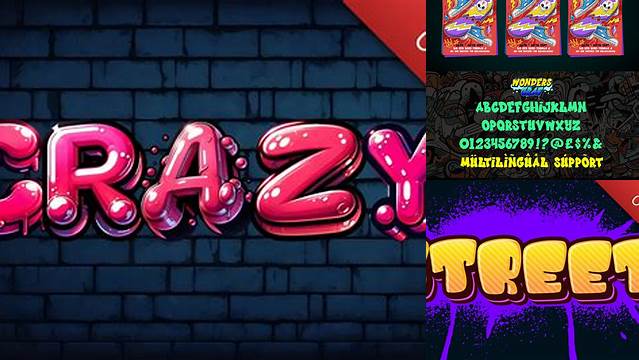
Free 3D Graffiti Font Generator: Create Stunning Art
Are you looking to transform your text into eye-catching 3D graffiti art? Look no further! In this article, we'll explore the exciting world of 3D graffiti font generators and how you can use them to create stunning visuals for your projects, all for free. Whether you're a seasoned designer or just starting, these tools offer a fantastic way to add a unique urban edge to your creations. So, let's dive in and discover how you can unleash your inner graffiti artist!
What is a 3D Graffiti Font Generator?
3D graffiti font generators are online tools that allow you to create text-based designs with a distinctive three-dimensional graffiti style. These generators take your input text and transform it into a graphic image that mimics the look and feel of real-world graffiti art. Imagine bold, vibrant letters with depth, shadows, and intricate details – that's the power of a 3D graffiti font generator. These tools are designed to be user-friendly, making it easy for anyone to create impressive graffiti art without needing specialized design software or skills. Guys, it's like having a virtual spray can at your fingertips!
The beauty of these generators lies in their ability to blend the raw, edgy aesthetic of graffiti with the precision and versatility of digital design. They offer a wide range of customization options, allowing you to experiment with different fonts, colors, shadows, and textures. This means you can tailor your graffiti art to perfectly match the mood and style of your project. Whether you're designing a logo, creating social media graphics, or just want to add some flair to a presentation, a 3D graffiti font generator can be a game-changer. You can even use these generators to create personalized gifts or decorations, adding a unique touch to your creations. The possibilities are endless, and the best part is, many of these tools are available for free, making them accessible to everyone. So, why not give it a try and see what amazing graffiti art you can create?
Moreover, 3D graffiti font generators often provide a preview feature, allowing you to see how your design will look before you finalize it. This is incredibly helpful for making adjustments and ensuring your final product is exactly what you envisioned. You can tweak the settings, change the colors, and experiment with different effects until you achieve the perfect result. This iterative process is not only efficient but also incredibly fun, encouraging creativity and exploration. The ease of use and the immediate feedback make these generators an excellent resource for both beginners and experienced designers alike. So, if you're looking to add some urban flair to your projects, a 3D graffiti font generator is definitely worth exploring. It's a fantastic way to express your creativity and make your designs stand out from the crowd. Plus, with the vast array of options and styles available, you're sure to find the perfect look for your unique vision. Let your imagination run wild and see what incredible graffiti art you can bring to life!
Why Use a Free 3D Graffiti Font Generator?
There are numerous reasons why using a free 3D graffiti font generator is a fantastic idea. First and foremost, it's free! This makes it an accessible option for anyone, regardless of their budget. You don't need to invest in expensive software or hire a professional designer to create stunning graffiti art. This is particularly beneficial for students, hobbyists, and small businesses that may have limited resources but still want to create high-quality visuals. It's a great way to experiment with different styles and techniques without any financial commitment. Plus, the money you save can be used for other aspects of your project, making it a smart choice for budget-conscious creators.
Beyond the cost savings, free 3D graffiti font generators are incredibly user-friendly. Most of these tools are designed with simplicity in mind, featuring intuitive interfaces that are easy to navigate. You don't need to be a design expert to create impressive graffiti art. Simply enter your text, choose your preferred font and colors, and the generator does the rest. This ease of use makes it a great option for beginners who are just starting to explore graphic design. You can quickly learn the basics of typography and visual design while creating eye-catching art. The quick turnaround time also means you can create multiple designs in a short period, making it ideal for brainstorming and experimentation. It's a fantastic way to develop your creative skills and find your unique style.
Another significant advantage is the variety of styles and options available. Free 3D graffiti font generators often offer a wide range of fonts, colors, and effects, allowing you to create truly unique and personalized designs. Whether you're looking for a classic old-school graffiti style or something more modern and abstract, you're likely to find it in these generators. This versatility makes them suitable for a wide range of projects, from social media graphics and logos to posters and presentations. You can customize every aspect of your design, from the font size and spacing to the shadows and textures. This level of control ensures that your final product perfectly matches your vision. Plus, the ability to experiment with different styles and effects can spark new ideas and inspire your creativity. So, if you're looking for a tool that offers both flexibility and ease of use, a free 3D graffiti font generator is an excellent choice.
Key Features to Look for in a 3D Graffiti Font Generator
When choosing a 3D graffiti font generator, there are several key features to consider to ensure you get the best results. Font selection is crucial. A good generator should offer a wide variety of graffiti-style fonts, ranging from classic bubble letters to more modern and edgy designs. The more fonts available, the more options you have to create a unique look. Look for generators that provide previews of the fonts, so you can easily see how your text will appear before you commit to a particular style. Guys, having a diverse font library is like having a full palette of colors – it allows you to express your creativity in countless ways!
Color customization is another essential feature. You should be able to easily change the colors of your text, outlines, and shadows to create the perfect visual effect. Some generators offer pre-set color palettes, while others allow you to choose custom colors using a color picker. The ability to add gradients and textures can also enhance your designs, giving them a more realistic and dynamic look. Experimenting with different color combinations is a great way to make your graffiti art stand out. Consider the overall mood and message you want to convey and choose colors that complement your design. For example, bright and bold colors can create a vibrant and energetic feel, while darker colors can add a more mysterious and edgy touch.
Shadow and depth effects are what truly make graffiti art pop in 3D. A good generator should allow you to adjust the depth, angle, and intensity of shadows to create a realistic three-dimensional effect. Look for options to add drop shadows, inner shadows, and even highlights to give your text more dimension. The ability to control these effects can significantly impact the final appearance of your design. Experiment with different shadow settings to achieve the desired level of depth and realism. Additionally, consider the lighting in your design – where is the light source coming from? Adjusting the shadows to match the lighting can add a professional touch to your artwork. By paying attention to these details, you can create graffiti art that looks like it's practically jumping off the screen.
Top Free 3D Graffiti Font Generators Online
Now that you know what to look for, let's explore some of the top free 3D graffiti font generators available online. Graffiti Text Creator is a popular choice, known for its user-friendly interface and wide selection of fonts. It allows you to easily customize colors, shadows, and outlines, making it a great option for beginners. The site offers a straightforward design process, where you simply type in your text, choose your font, and adjust the settings to your liking. It's a fantastic tool for quickly generating graffiti-style text for various projects. Guys, it's like having a digital graffiti wall at your fingertips!
Another excellent option is TextGiraffe, which offers a variety of graffiti-style fonts and effects. It provides a simple yet effective way to create 3D graffiti text, with options to adjust the size, color, and shadow. TextGiraffe's interface is clean and intuitive, making it easy to navigate and create your desired text effects. It's a great resource for those who want to add a touch of urban flair to their designs. The site also offers a range of other text effects, making it a versatile tool for graphic design projects. Whether you're creating a logo, a poster, or social media graphics, TextGiraffe can help you achieve the perfect graffiti look.
Cool Text is another standout choice, providing a range of 3D graffiti font styles and customization options. It allows you to experiment with different effects, such as gradients, textures, and outlines, to create unique designs. Cool Text is known for its extensive library of fonts and styles, making it a go-to resource for many designers. The site's easy-to-use interface allows you to quickly create eye-catching text effects for a variety of purposes. From website headers to print materials, Cool Text offers a wide range of options to suit your needs. The ability to preview your designs in real-time is also a valuable feature, allowing you to fine-tune your creations before downloading them. With its combination of versatility and ease of use, Cool Text is a top pick for anyone looking to generate 3D graffiti fonts.
Tips for Creating Amazing 3D Graffiti Art
Creating stunning 3D graffiti art involves more than just using a generator; it's about understanding the nuances of design and applying some key techniques. Start with a clear concept. Before you even open a font generator, take some time to think about what you want to create. What message do you want to convey? What style are you aiming for? Having a clear idea in mind will help you make informed decisions about font choices, colors, and effects. Guys, it's like planning a masterpiece before you even pick up a brush!
Experiment with different fonts and styles. Don't be afraid to try out a variety of options to see what works best for your project. Different fonts have different personalities, so choose one that aligns with your message and style. Consider the overall mood you want to create – a bold, blocky font might be perfect for a high-energy design, while a more flowing script font could add a touch of elegance. Experimenting with different combinations can lead to surprising and creative results. The key is to have fun and let your imagination guide you. Each font has its own unique characteristics, and discovering how they interact with different effects and colors is part of the creative process.
Pay attention to color and contrast. Color plays a crucial role in graffiti art, so choose your palette carefully. Bold, contrasting colors can create a dynamic and eye-catching effect, while more subtle combinations can add a touch of sophistication. Think about how colors interact with each other and how they contribute to the overall message of your design. High contrast can make your text stand out and grab attention, while lower contrast can create a more harmonious and balanced look. Consider the background color of your design as well, and choose colors that complement or contrast with it. Color is a powerful tool in graphic design, and mastering its use can elevate your graffiti art to the next level.
Where to Use Your 3D Graffiti Fonts
Once you've created your amazing 3D graffiti fonts, the next step is to put them to use! Social media graphics are a fantastic place to showcase your creations. Use them in your profile pictures, banners, or post designs to add a unique and eye-catching touch. Graffiti art can help your social media content stand out from the crowd and attract attention. Whether you're promoting a product, sharing an announcement, or just expressing your creativity, a well-designed graffiti font can make a big impact. Consider using your graffiti fonts in headers, captions, and even watermarks to brand your content and make it instantly recognizable. Social media is a visual medium, and using creative fonts can help you capture the attention of your audience and communicate your message effectively.
Logos and branding materials can also benefit from a touch of graffiti flair. If your brand has an edgy or urban vibe, a 3D graffiti font can be the perfect way to represent it visually. Use your graffiti fonts in your logo, business cards, and other marketing materials to create a consistent and memorable brand identity. A unique and well-designed logo can set you apart from your competitors and help you make a lasting impression on your customers. Graffiti fonts can add a sense of authenticity and originality to your branding, especially if your target audience is young and trend-conscious. Just be sure to choose a font that is legible and reflects your brand's personality and values. When used effectively, graffiti fonts can be a powerful tool for creating a distinctive and impactful brand identity.
Personal projects and creative endeavors are another great outlet for your 3D graffiti fonts. Use them to create custom posters, invitations, or even personalized gifts. Graffiti art can add a unique and personal touch to any project, making it stand out and express your creativity. Consider using your fonts for birthday cards, event flyers, or even home decor. The possibilities are endless, and the only limit is your imagination. Guys, think about creating a custom t-shirt with your name in graffiti style, or designing a unique wallpaper for your phone. Personal projects are a great way to experiment with different styles and techniques and to showcase your artistic skills. So, don't be afraid to get creative and use your 3D graffiti fonts in ways that reflect your personality and passions.
Free 3D graffiti font generators are powerful tools that allow you to create stunning visual art without any cost. By understanding the key features to look for and experimenting with different styles and techniques, you can unleash your creativity and add a unique urban edge to your projects. So, why wait? Dive into the world of 3D graffiti fonts and start creating today!